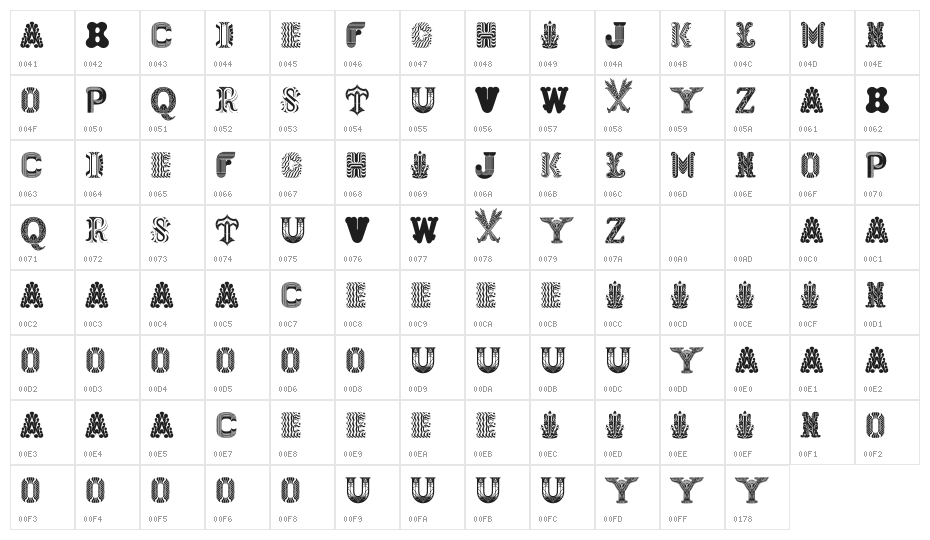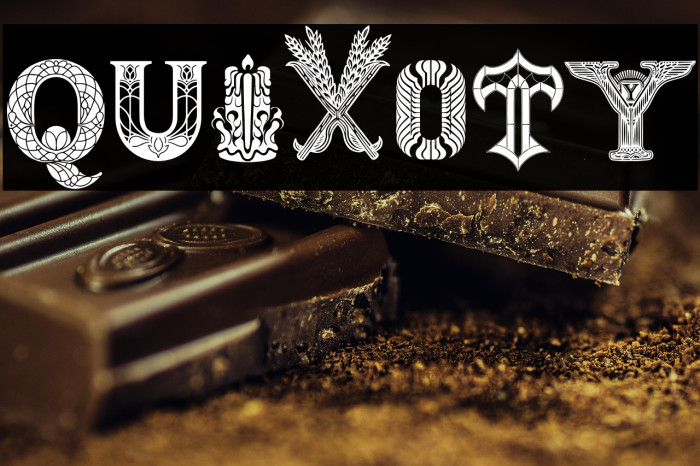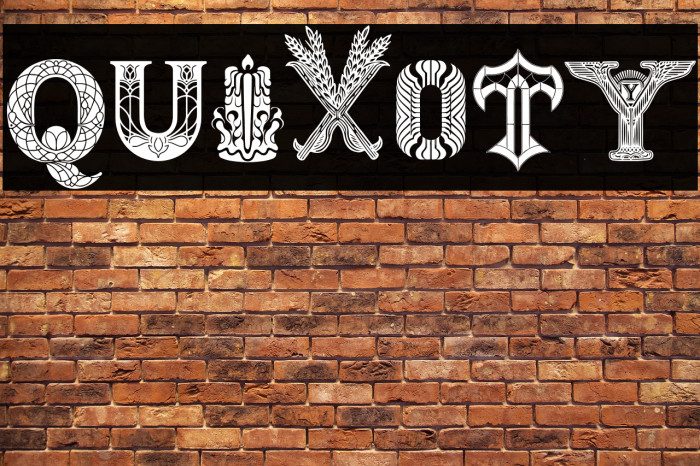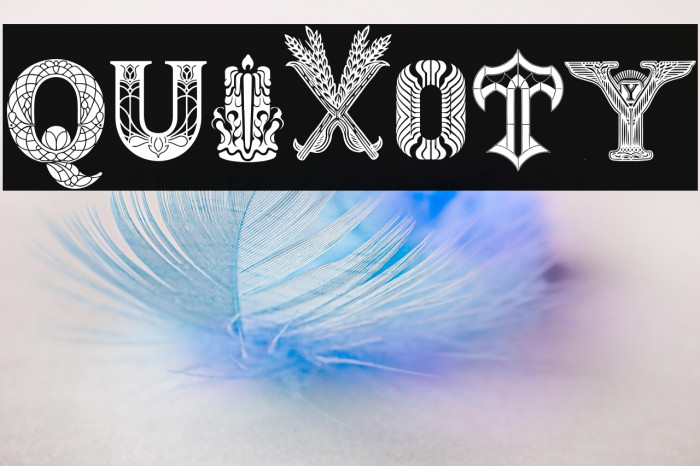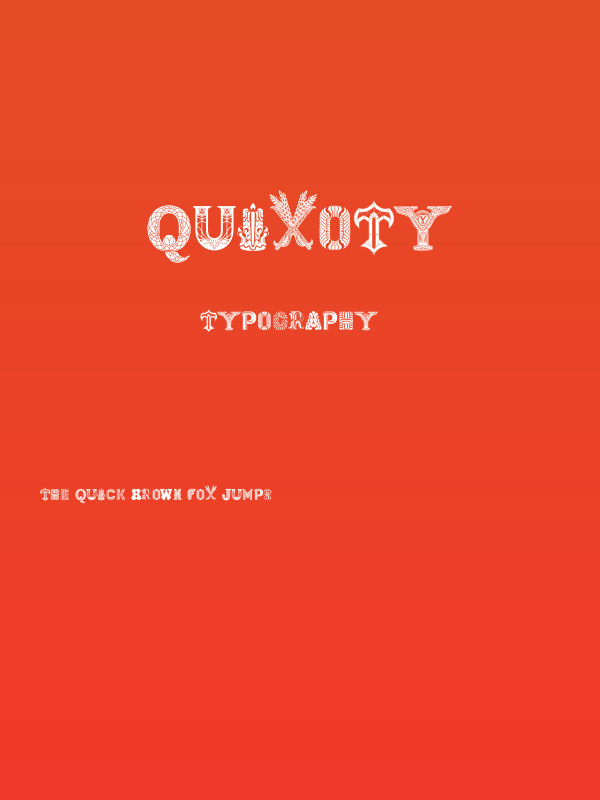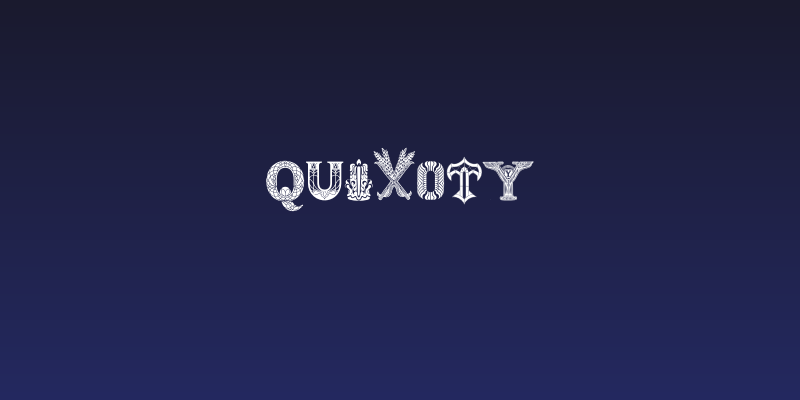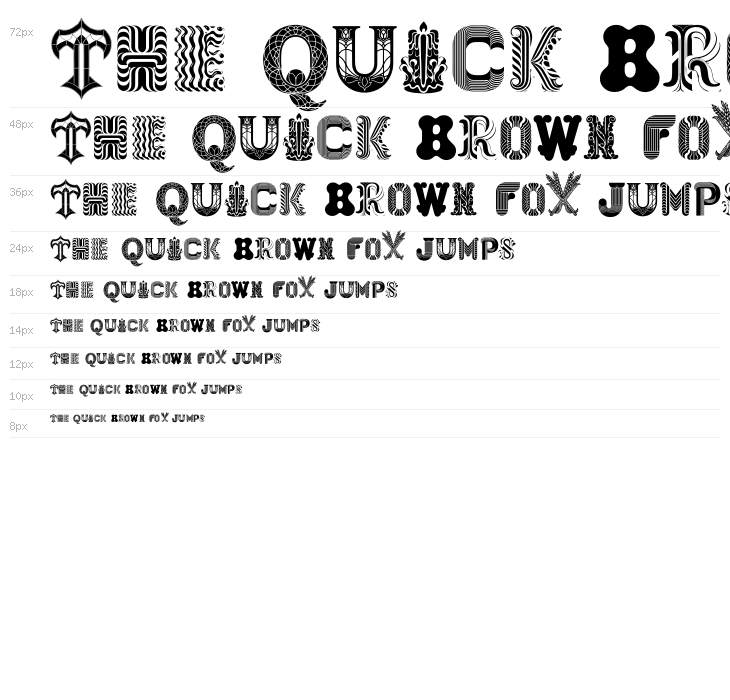
Quixoty Font
Quixoty Description
This font is a vibrant and eclectic collection of decorative styles, each letter uniquely designed with intricate patterns and bold shapes. The uppercase letters feature a variety of textures, including stripes, dots, and geometric motifs, creating a visually striking and playful appearance. The font lacks lowercase letters and numbers, focusing solely on the uppercase alphabet. The diverse styles within the font make it ideal for creative and artistic projects, where each letter can stand out as a piece of art. Its bold and decorative nature makes it unsuitable for body text but perfect for headlines and display purposes.
| Proposed Projects | Ideal for artistic projects, posters, album covers, and creative branding. |